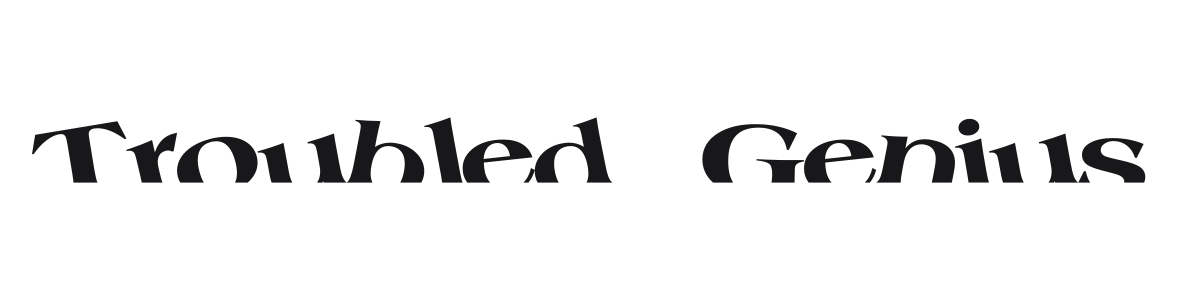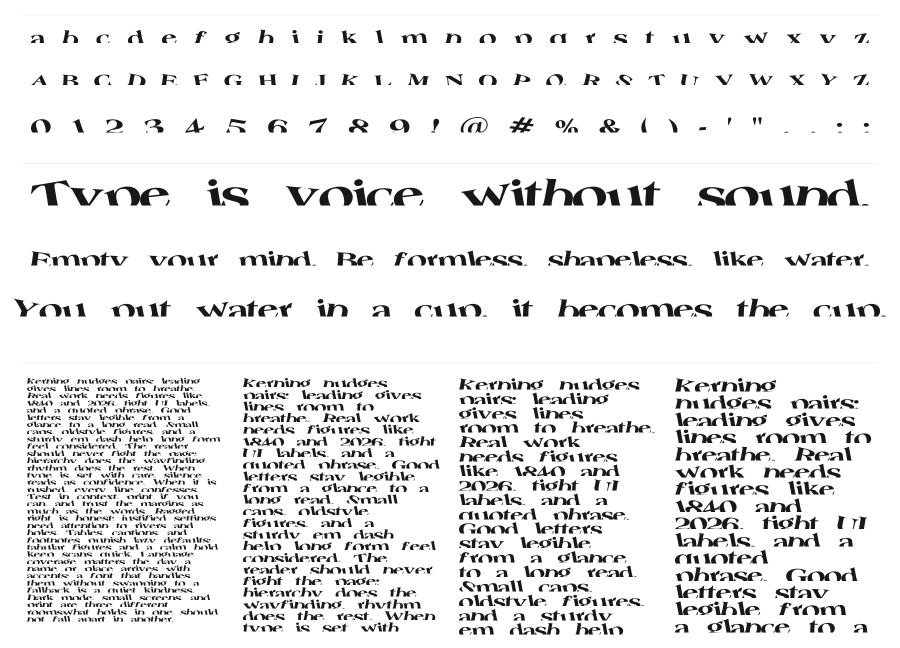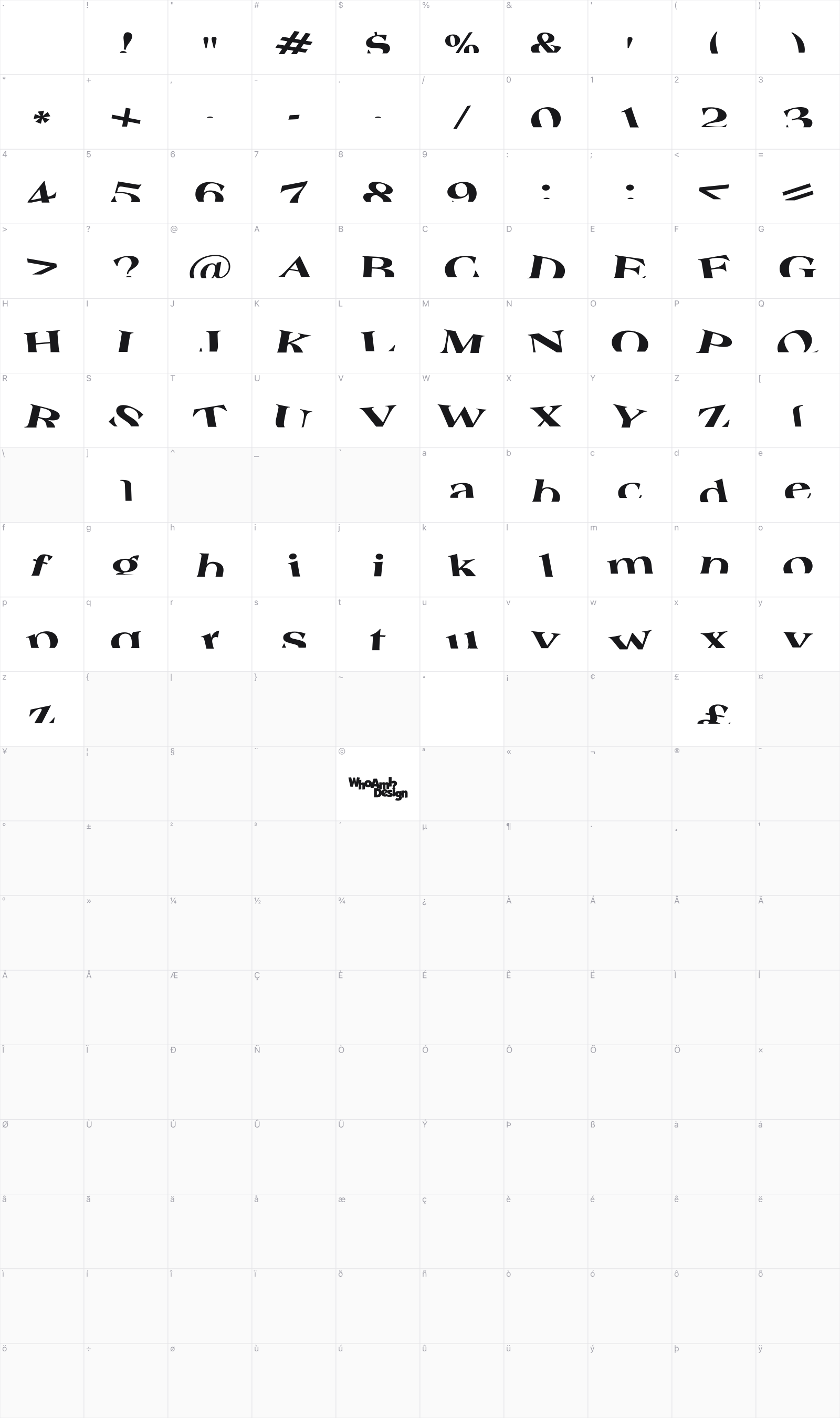
Troubled Genius
Troubled Genius is a heavy serif display font from the late 1990s built on deliberately broken spacing and extreme stroke contrast. The erratic gaps between characters feel intentional, like a typographer losing their grip on the baseline. It carries a raw, underground energy suited to album covers, editorial spreads, and anything that benefits from looking slightly unhinged.